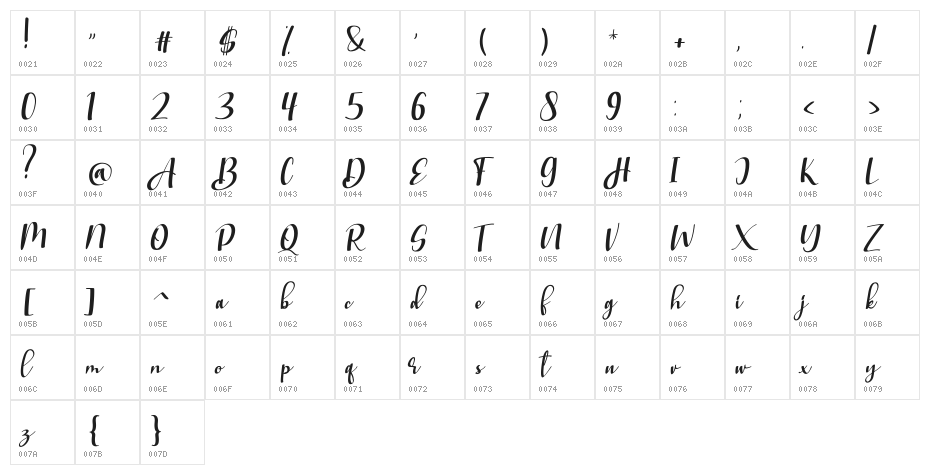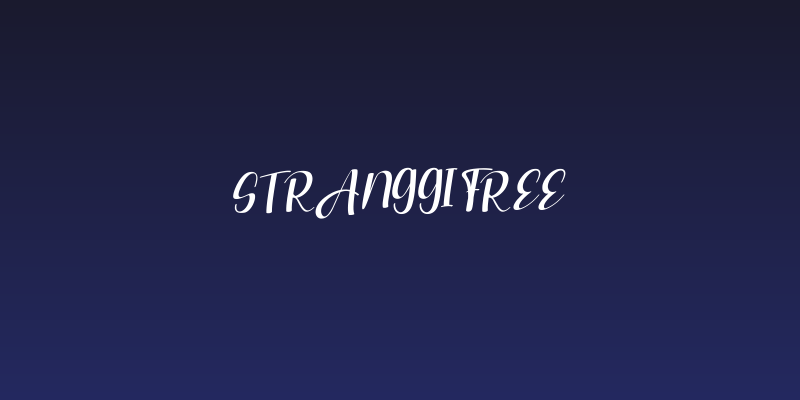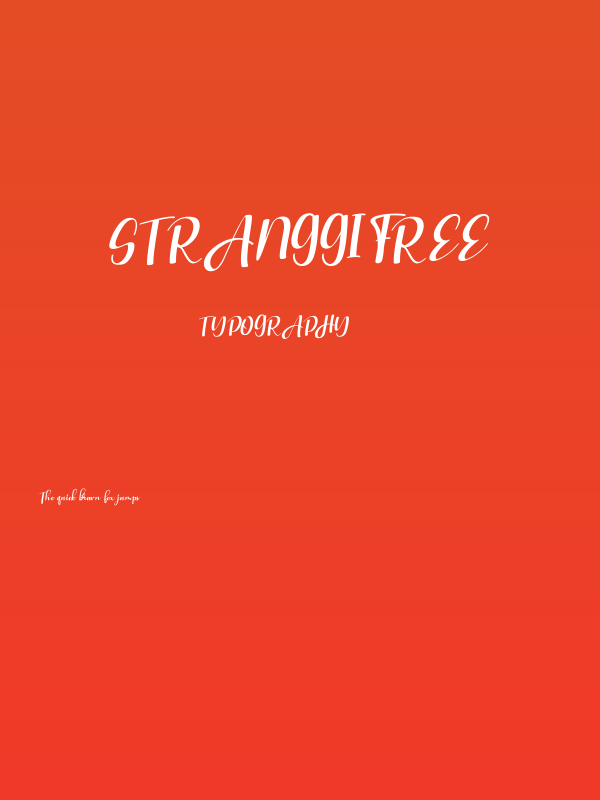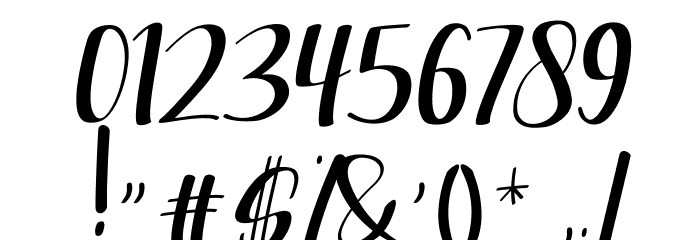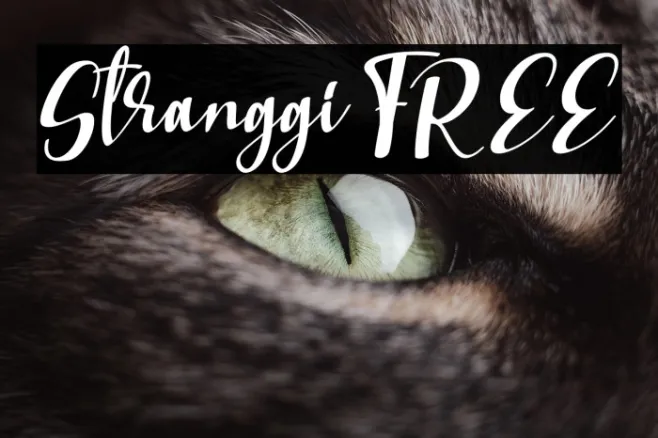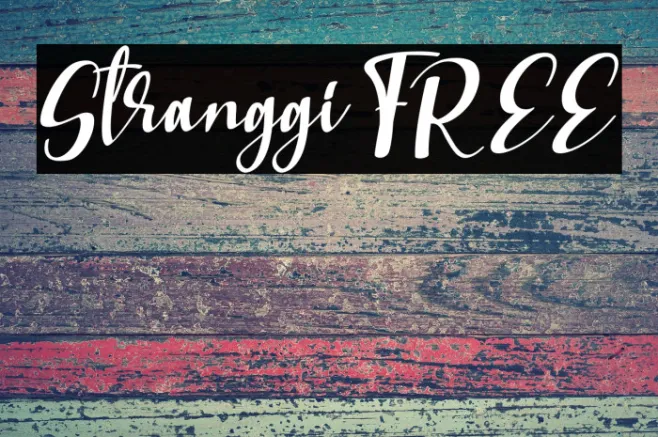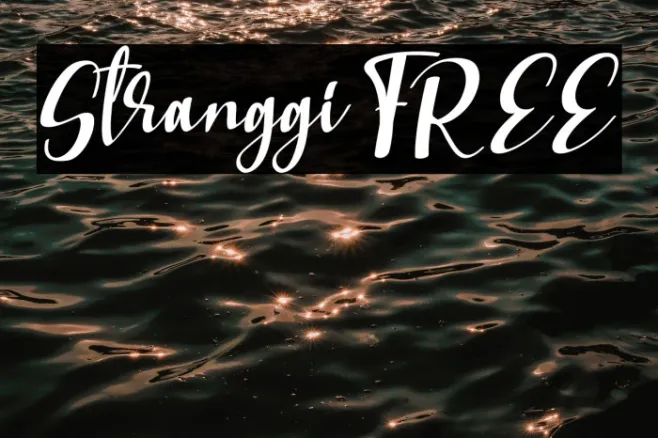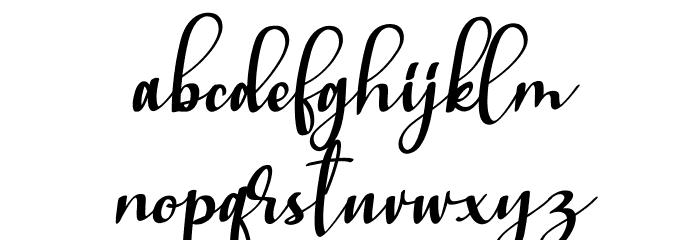
Stranggi FREE Font
Stranggi FREE Description
This font features an elegant and flowing script style, characterized by its smooth, cursive strokes and a sense of fluidity. The uppercase letters are bold and dynamic, with a slight slant that adds a touch of sophistication. The lowercase letters maintain a consistent style, offering a harmonious blend of curves and loops. Numbers are crafted with the same attention to detail, ensuring readability while maintaining the font's artistic flair. Special characters are thoughtfully designed, complementing the overall aesthetic. This font exudes a sense of grace and creativity, making it suitable for a variety of expressive projects.